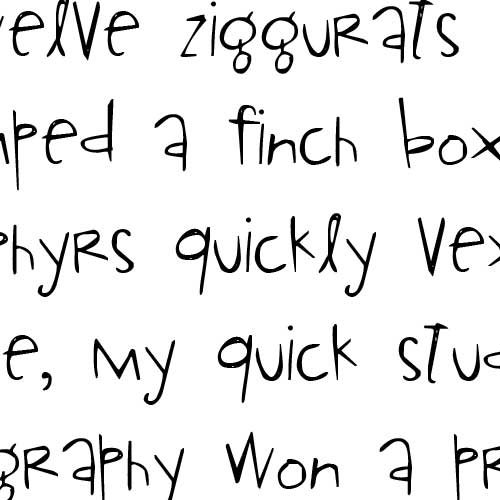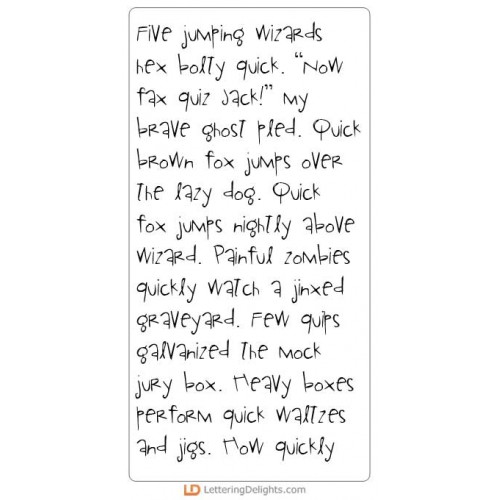
LDJ Jill Scratch - Font
You will use LDJ Jill Scratch again and again in your creative scrapbook journaling, handmade greeting cards, and desktop publications. Its handwritten style is perfect for fun and informal paper crafts.